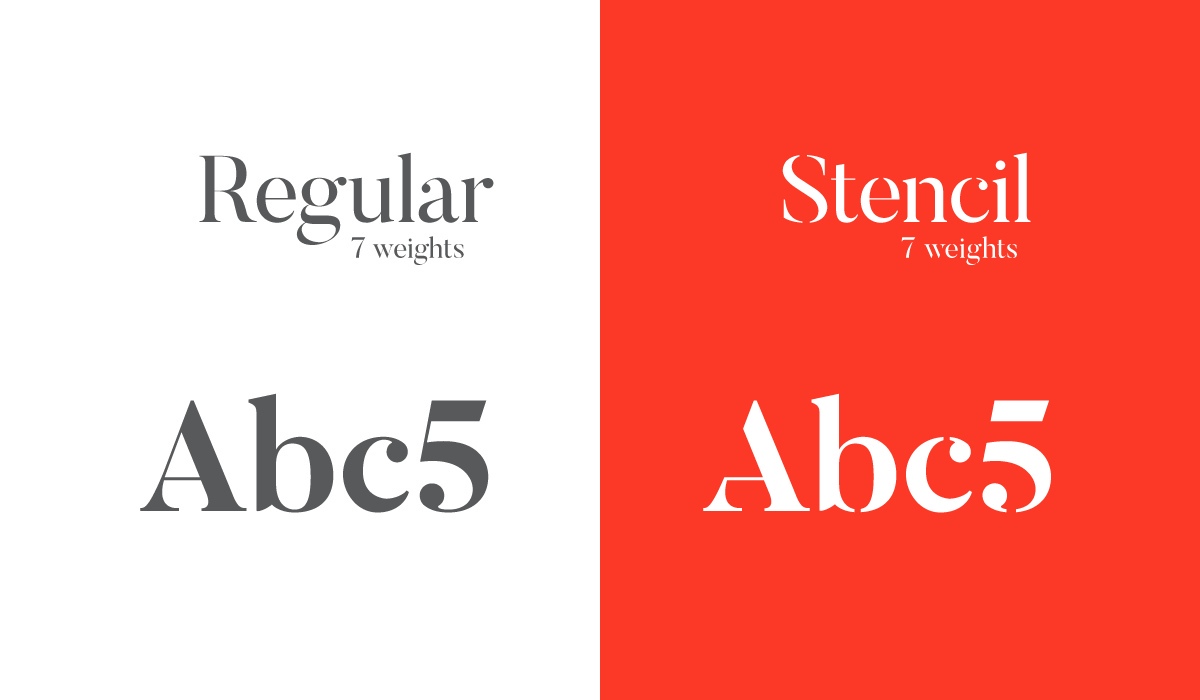
Butler & Butler Stencil Font
Butler & Butler Stencil Font is perfect for industrial branding, military-inspired designs, shipping labels, warehouse signage, vintage packaging, street art projects, urban fashion brands, tactical gear branding, stencil artwork, and rugged outdoor equipment labels.
Butler & Butler Stencil Font is exciting because it combines the raw functionality of traditional stencil lettering with refined typographic craftsmanship, creating a typeface that commands attention while maintaining industrial authenticity. This font brings strength and durability to any project, making it ideal for brands that want to convey reliability, toughness, and no-nonsense functionality. Its bold stencil cuts and sturdy construction create an immediate sense of authority and practical utility.
Butler & Butler Stencil Font family includes regular, bold, condensed, and extended variations, along with both filled and outlined versions, providing designers with versatile options for creating impactful industrial and contemporary design solutions.
This powerful stencil typeface merges utilitarian design principles with modern aesthetic sensibilities, making Butler & Butler Stencil Font Free Download an outstanding choice for contemporary projects requiring bold visual impact. The font's carefully engineered stencil breaks maintain structural integrity while ensuring optimal paint flow and cutting precision for physical stencil applications.
Whether you're designing tactical equipment branding, urban streetwear graphics, or industrial facility signage, Butler & Butler Stencil Font delivers unmatched strength and visual authority. The font excels in both large-scale environmental applications and detailed product labeling where durability and clarity are essential.
Creative professionals appreciate Butler & Butler Stencil Font for its ability to instantly communicate strength and reliability while maintaining surprising versatility across different design contexts. The font's stencil characteristics make it perfect for both traditional spray-paint applications and modern digital design work.
Each character has been meticulously engineered to maintain readability even when reproduced through physical stenciling processes, ensuring consistent results across all production methods and materials.